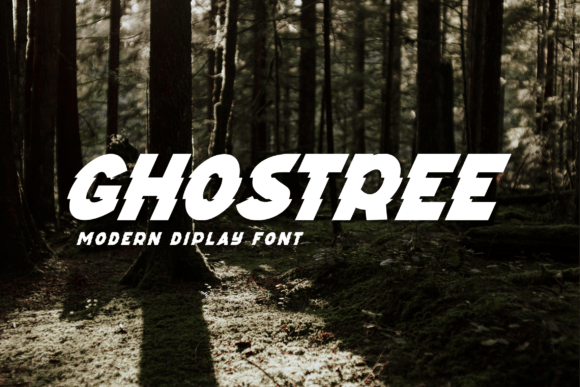
Discovering the Perfect Display Font for Your Next Big Project
Have you ever found yourself stuck in a creative rut, staring blankly at your computer screen as you try to come up with the perfect font for your next big project? We’ve all been there. But what if I told you that I’ve discovered the secret to unlocking your creative potential and taking your designs to the next level? Introducing the Ghostree Font, a bold and authentic display font that’s about to become your new go-to.
This stunning font is designed for designers who demand the best, and it’s perfect for any branding project, from logos to t-shirt printing and everything in between. Whether you’re working on an e-sport campaign or a fashion brand, the Ghostree Font is sure to make a statement and leave a lasting impression. As a designer, you know how valuable it is to have a font that’s both versatile and visually striking, and the Ghostree Font delivers on both fronts.
Ghostree Font Key Features
- Font Family: Ghostree comes in two font families – Ghostree Regular and Ghostree Italic, each with its unique characteristics.
- Font Size: Ghostree is designed to be versatile and scalable, making it suitable for use in various font sizes, from 8pt to 200pt.
- Unique Characteristics: Ghostree’s distinctive letterforms and subtle texture give it a unique, handwritten feel that is both elegant and expressive.
- Language Support: Supports a wide range of languages, including Latin, Cyrillic, and Greek scripts, making it a great choice for multilingual designs.
Ghostree Font Review
Overall, I’d say the Ghostree Font is a solid addition to any design project. ✨ It’s got a certain whimsical charm that can add a touch of personality to your work. The font’s unique blend of modern and organic elements makes it perfect for projects that need a bit of flair.
One of the things that stands out about Ghostree is its versatility. ✨ It works well in both digital and print formats, making it a great choice for designers who need a font that can adapt to different mediums. The font’s OpenType features also make it easy to create complex designs and effects.
- Unique blend of modern and organic elements
- Highly versatile, works well in digital and print formats
- OpenType features make it easy to create complex designs and effects
- ⚠️ May be too ornate for some design projects
- ⚠️ Can be difficult to read at small font sizes
- ⚠️ May not be suitable for projects that require a more minimalist aesthetic
Overall, I’d recommend the Ghostree Font to designers who are looking for a unique and versatile font that can add a touch of personality to their work. Just be mindful of the limitations and use it in contexts where it will shine.
Practical Application Guide for Ghostree Font
Tips for Getting the Most Out of Ghostree Font
For a more dramatic effect, use Ghostree Font in bold or italic styles.
Pair Ghostree Font with other modern fonts for a sleek and professional look.
Ghostree Font is ideal for:
Branding and logos
Business cards and resumes
Advertising and marketing materials
Web design and digital interfaces
Comparison to Ghostree Font: Montserrat has a similar feel to Ghostree Font but with a more modern and geometric twist. It is ideal for designers who want a font that is both clean and stylish.
Open Sans is a popular sans-serif font that is highly legible and versatile. It is perfect for creating designs that require a clean and modern look. Open Sans is a great alternative to Ghostree Font for designers who want a font that is easy to read and works well for both digital and print media.